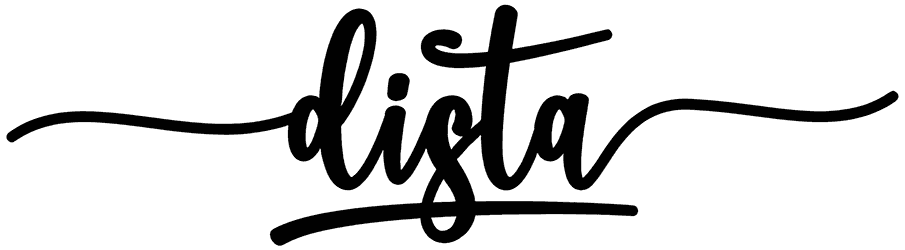
Dista Font
A good thing about a casual handwritten font like this one is that it is useful for countless projects. Dista font has a lively and ravishing visual that can be perfect for a birthday party invitation card, a business card for a fashion brand, or many others. Test this dream font for your next design and reveal your artistic skills.